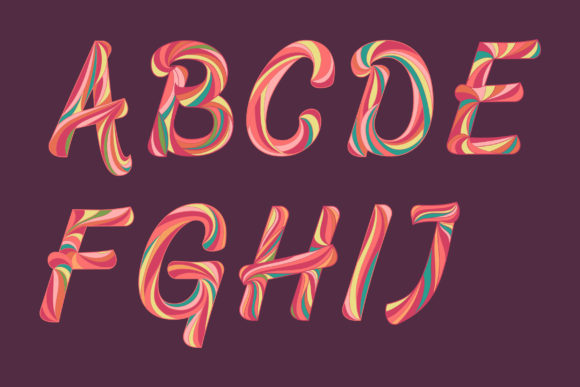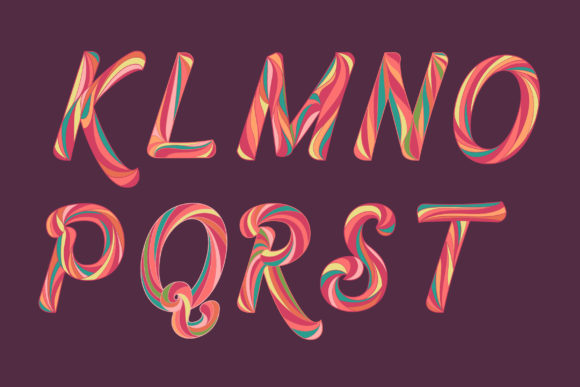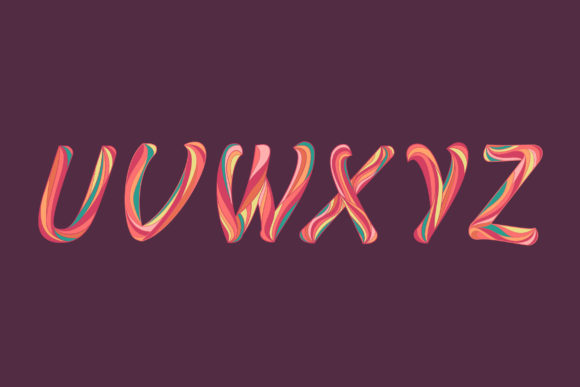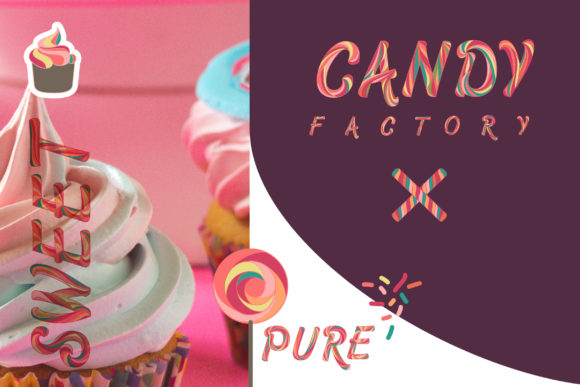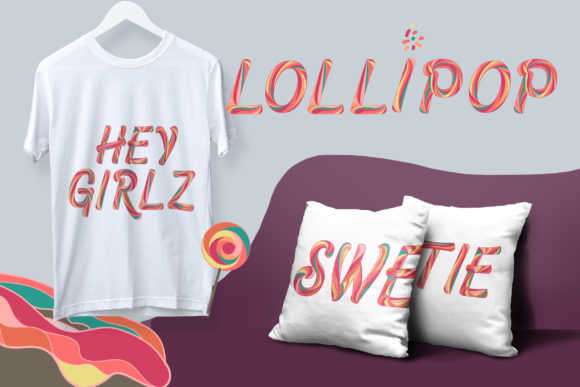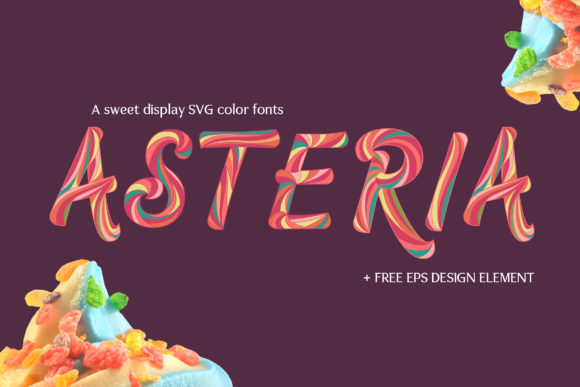
Asteria Font: The Fun and Friendly Color Font for Creative Projects
Are you looking for a font that embodies playfulness and authenticity for your children’s activity or school project? Look no further than Asteria Font! This fun and friendly color font is perfect for designers and crafters who want to add a touch of whimsy to their work. In this article, we’ll explore the features and benefits of Asteria Font, as well as provide tips on how to use it in various design software.
What is Asteria Font?
Asteria Font is a color font that combines the fun and playfulness of a handwritten font with the versatility of a digital font. It’s an Opentype-SVG font, which means it’s a scalable vector graphic that can be used in a variety of design software, including PhotoShop, Illustrator, Silhouette, and Inkscape. This font is perfect for creating colorful and eye-catching designs for children’s activities, school projects, and more.
Key Features of Asteria Font
- Color Font: Asteria Font is a color font, which means it comes with multiple colors that can be used to create a range of different effects and designs.
- Playful and Friendly: Asteria Font is designed to be fun and friendly, making it perfect for children’s activities and school projects.
- Authentic: This font embodies authenticity, making it perfect for designers and crafters who want to create unique and original designs.
Tips for Using Asteria Font
Here are a few tips for using Asteria Font in your designs:
- Experiment with Colors: One of the best things about Asteria Font is its color capabilities. Experiment with different colors and combinations to create unique and eye-catching designs.
- Use in Combination with Other Fonts: Asteria Font is a fun and playful font, but it can also be used in combination with other fonts to create a range of different effects.
Asteria Font is a fun and friendly color font that’s perfect for designers and crafters who want to add a touch of whimsy to their work. With its playfulness, authenticity, and versatility, it’s the perfect choice for any children’s activity or school project. Whether you’re a seasoned designer or just starting out, Asteria Font is a great addition to any design library.